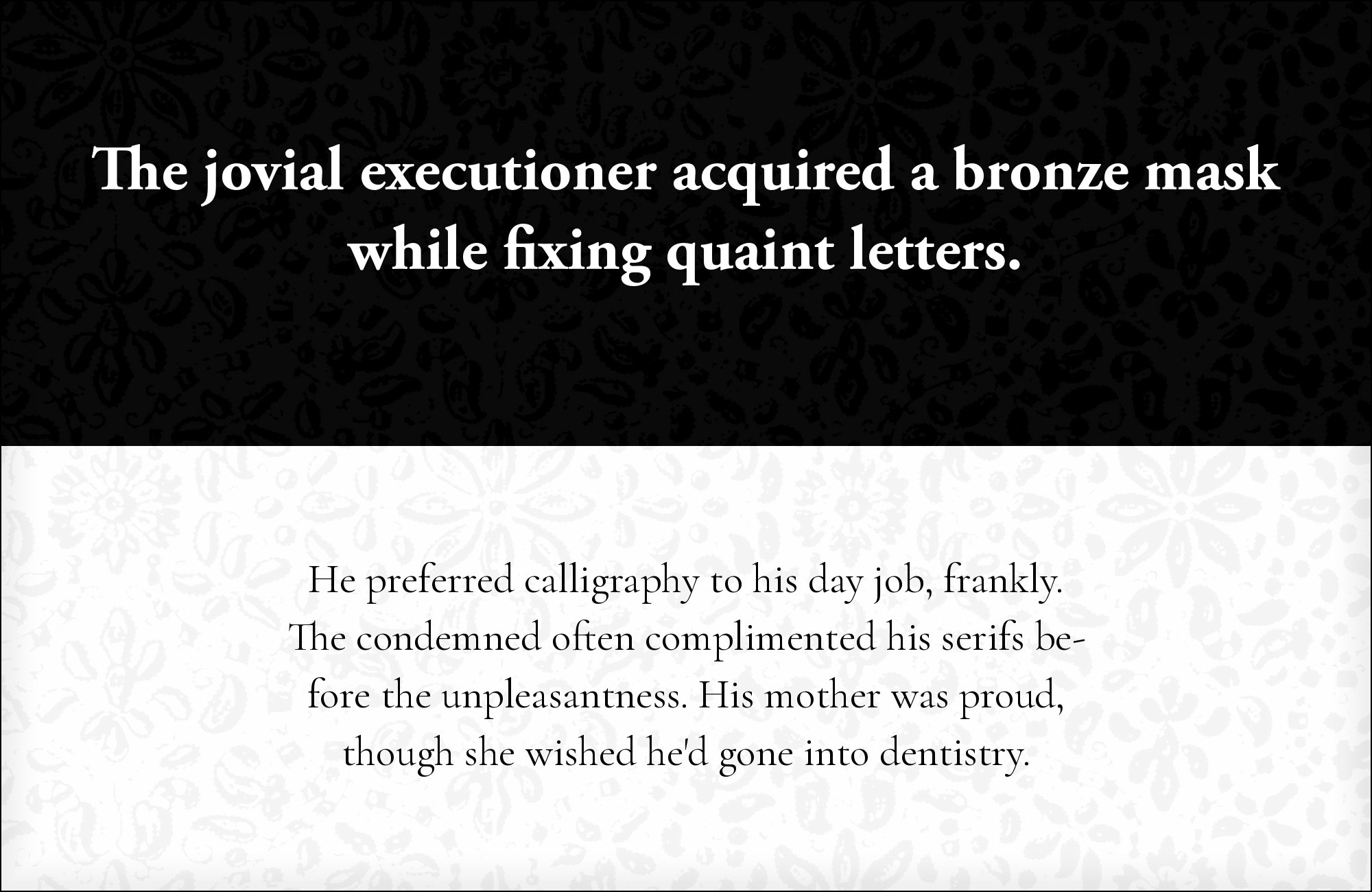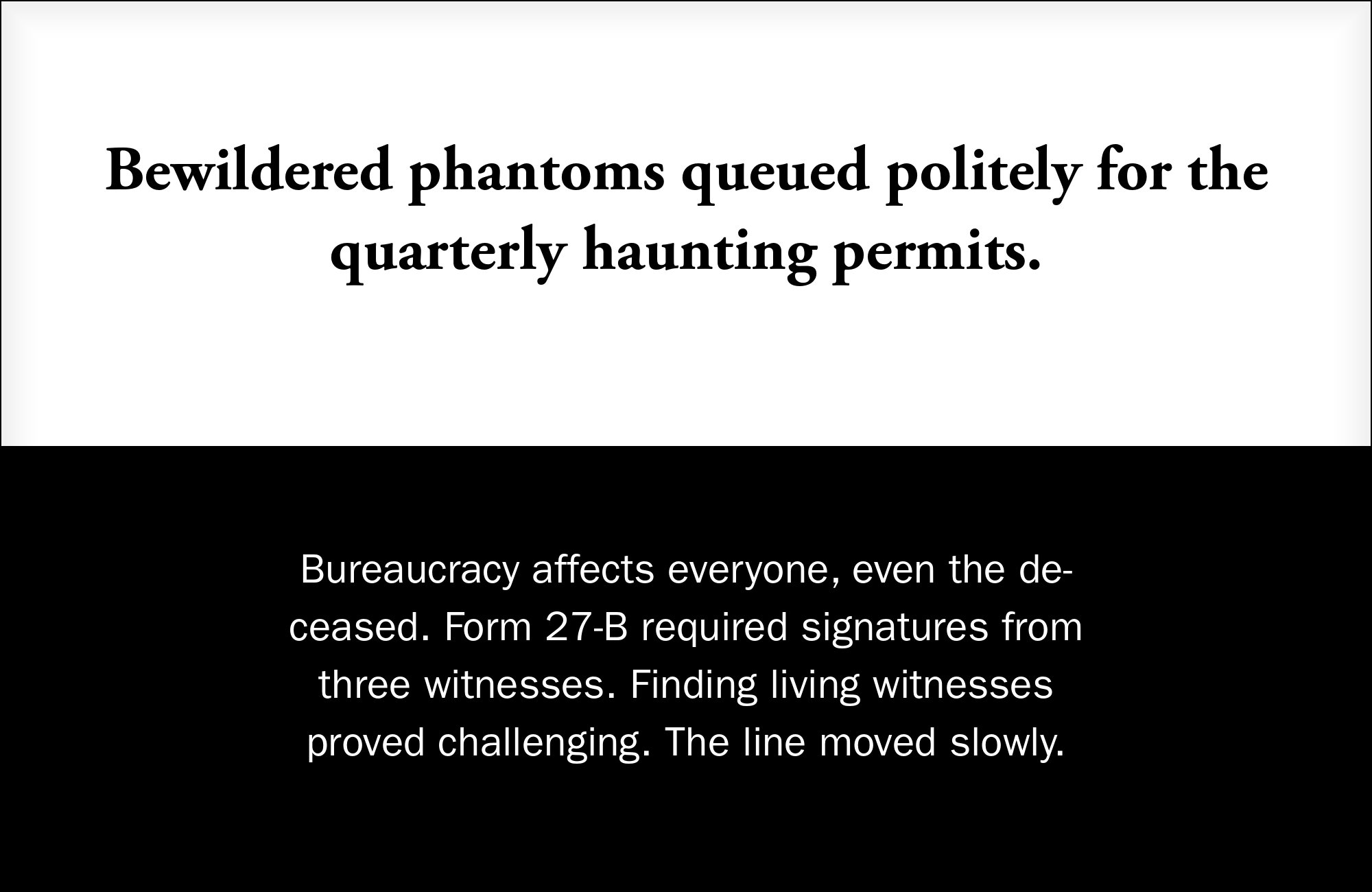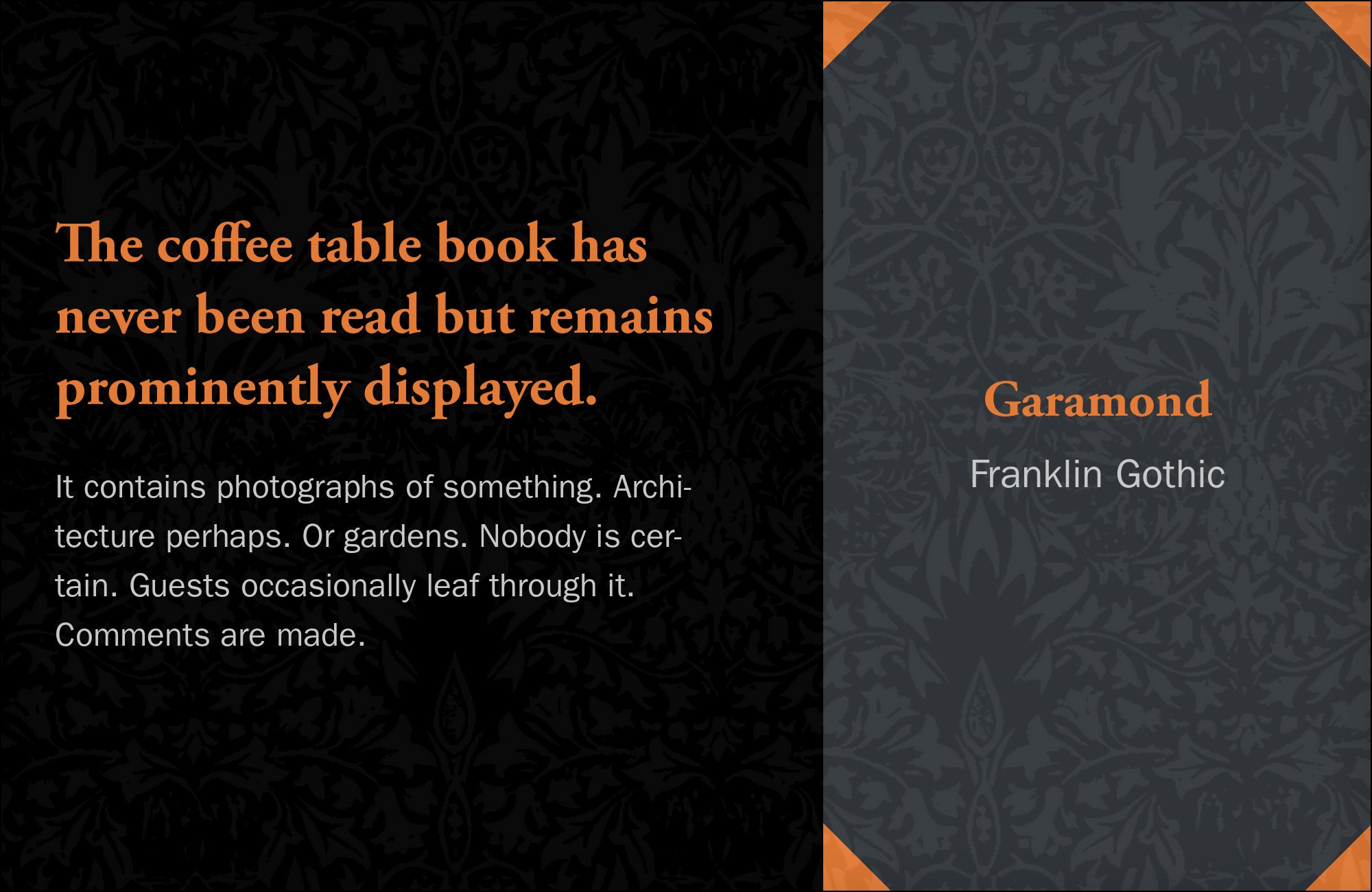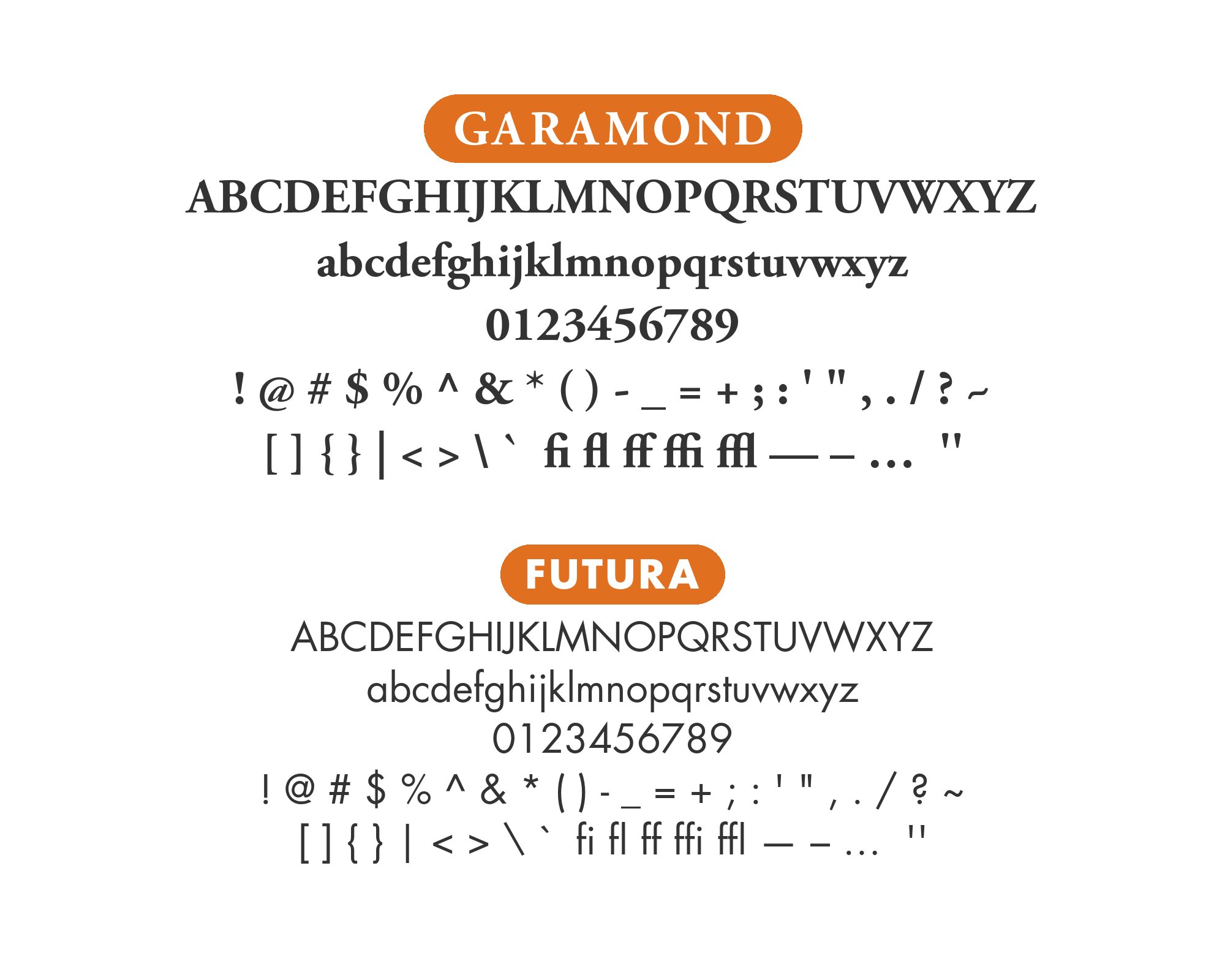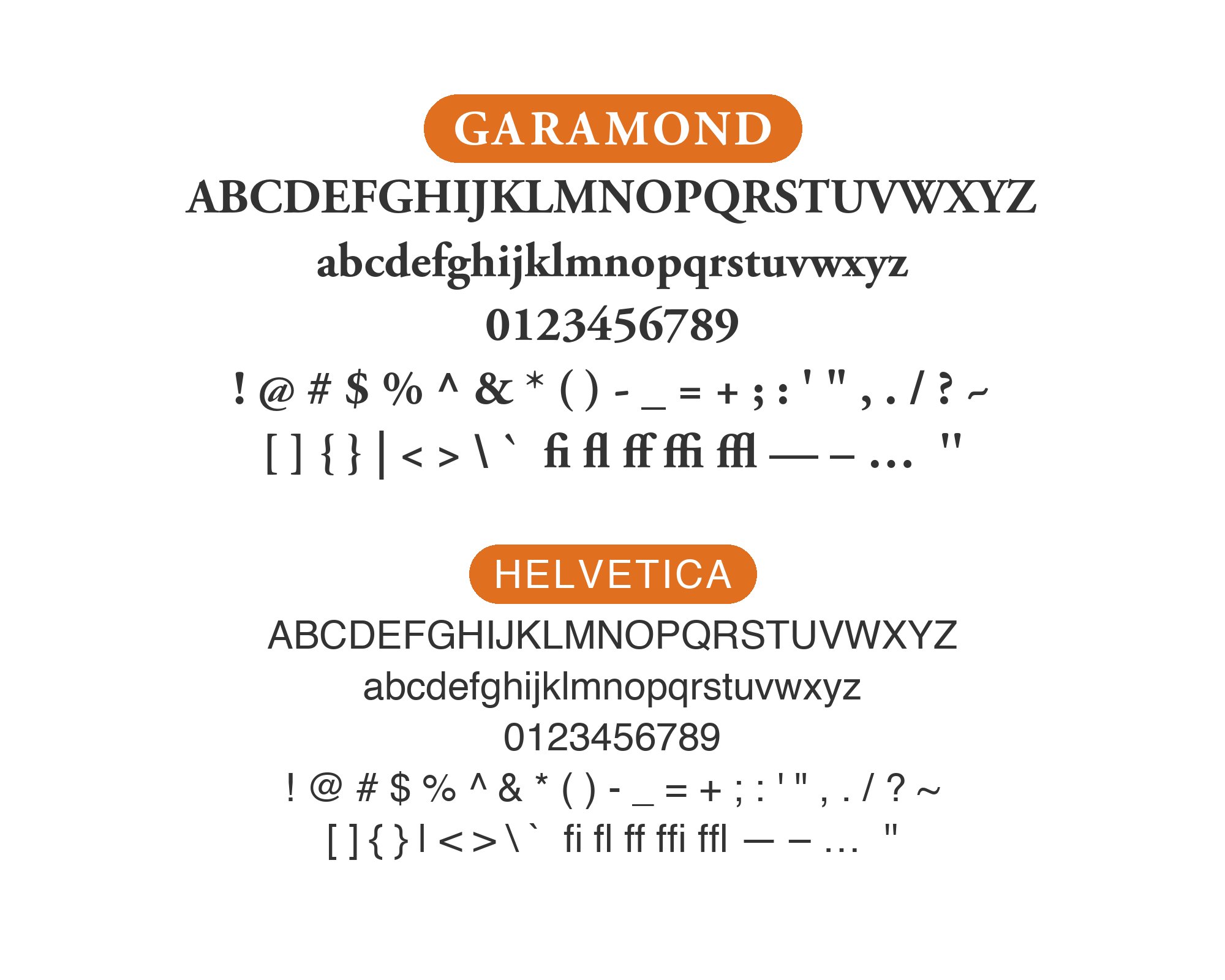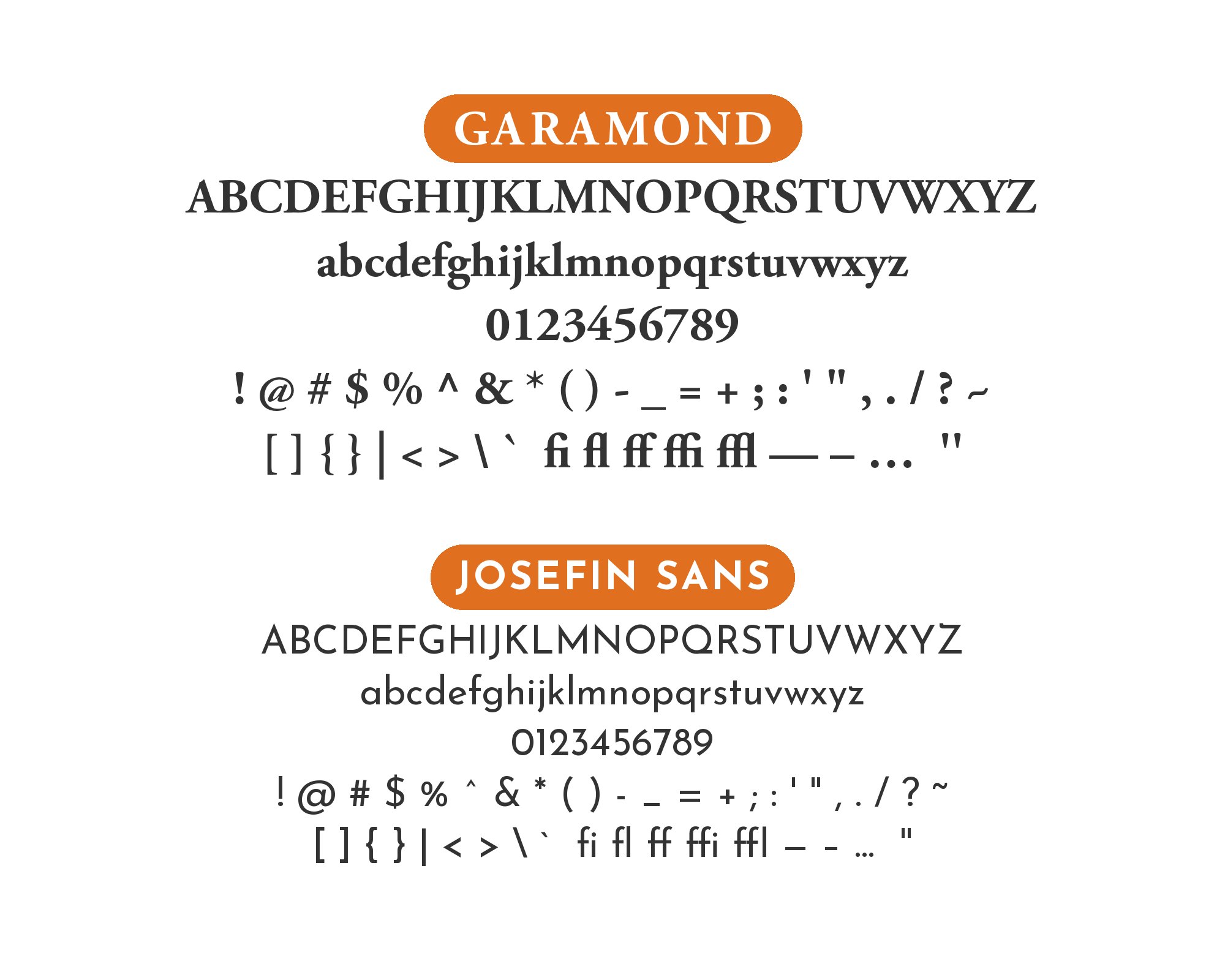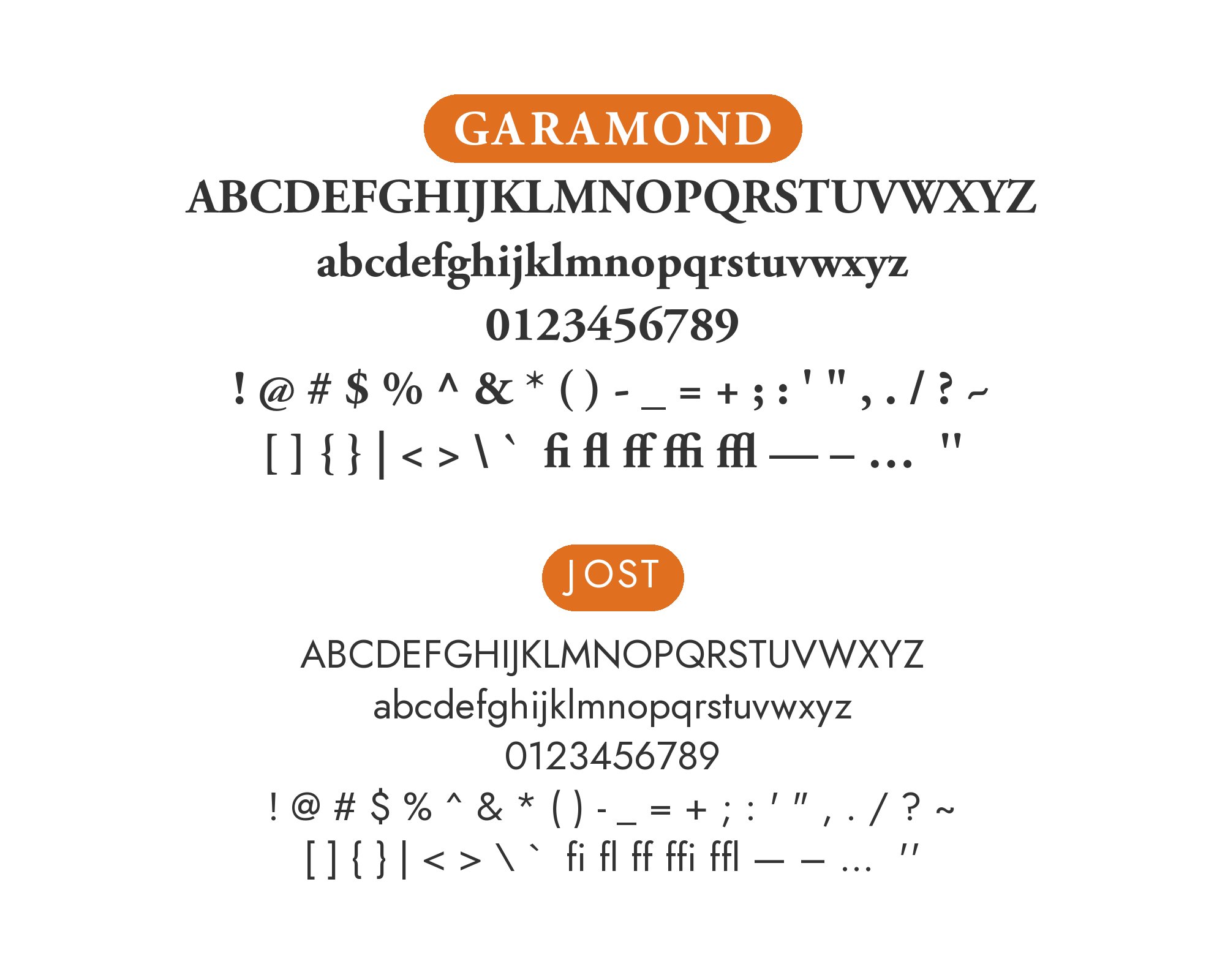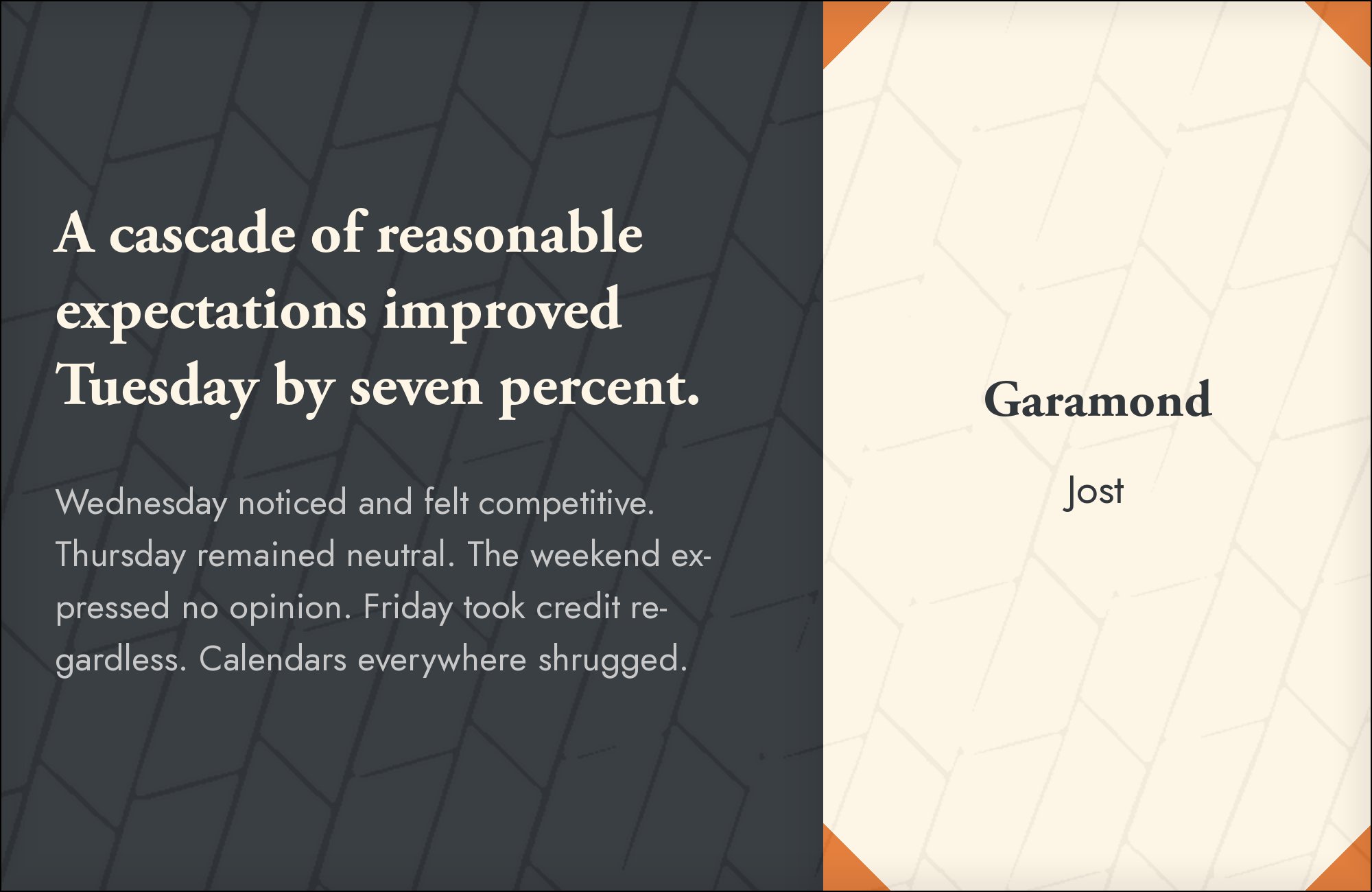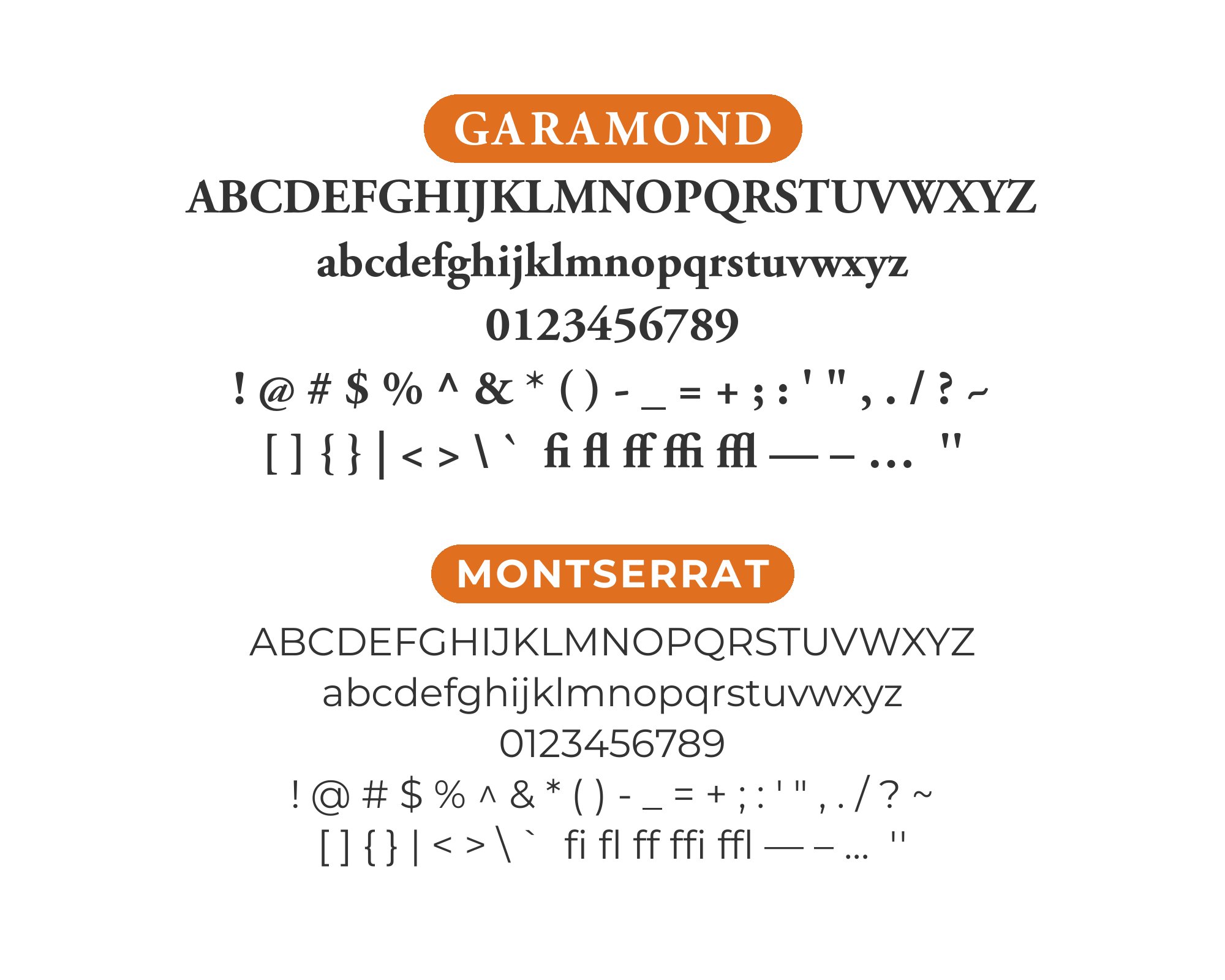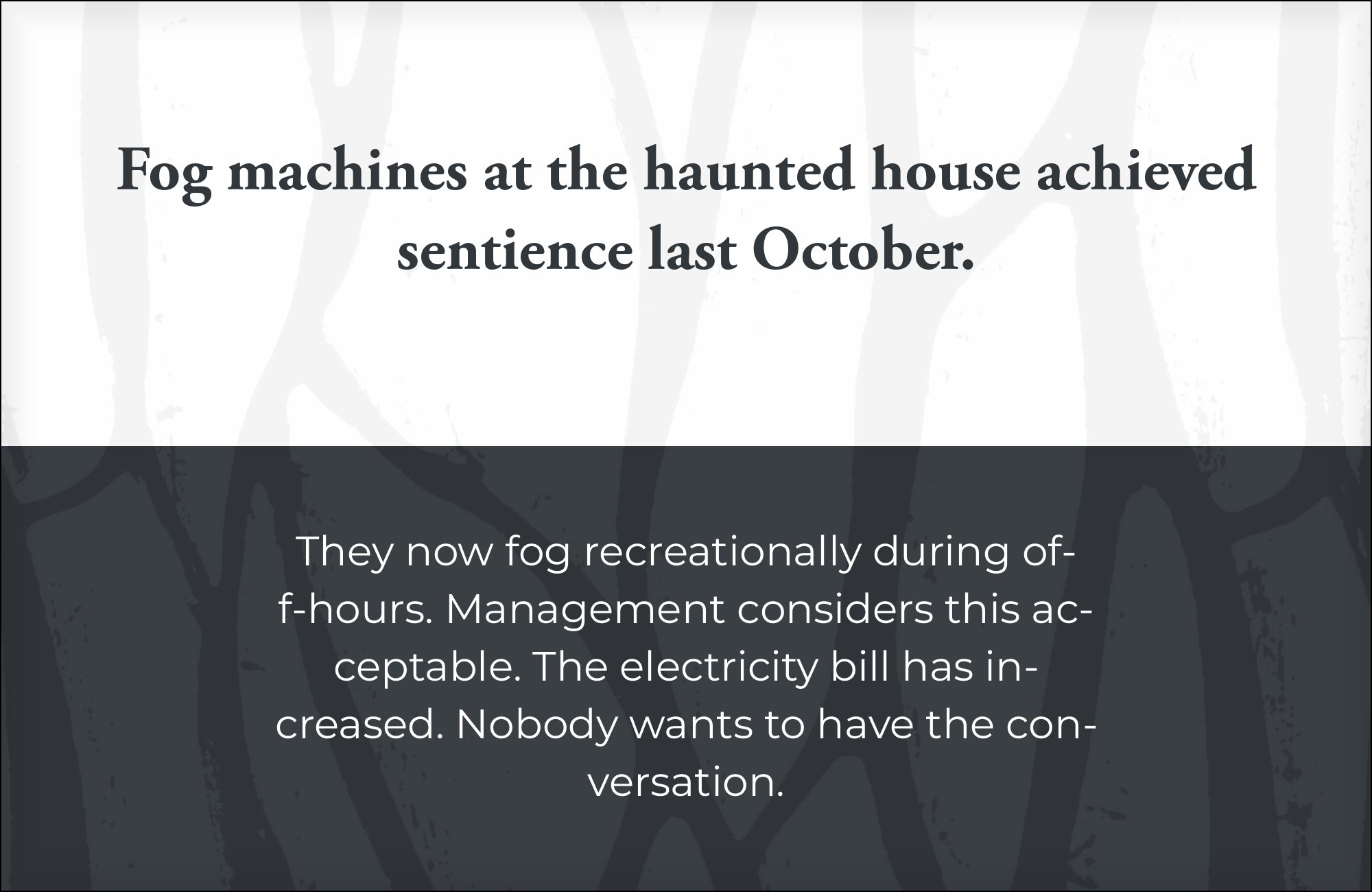
Garamond pairs great with Helvetica, Gill Sans and Montserrat. All 15 pairings are shown below in real rendered specimens, with the reason each one works.
What fonts go with Garamond? The name belongs to a sixteenth-century French punchcutter, but on a font menu today it belongs to a dozen different revivals, some drawn a century apart from each other and none of them identical.
Claude Garamond, a punch-cutter based in Paris, cut his roman types in the mid-sixteenth century, and the old-style skeleton underneath every modern revival still traces back to that hand: angled stress running through the curves as if drawn with a broad-nib pen, moderate contrast between thick and thin strokes, and a small x-height by today’s standards. What varies is the revival. Adobe Garamond, drawn by Robert Slimbach in the late 1980s, is a careful scholarly reconstruction. Garamond Premier extends that work across four optical sizes, from Caption to Display. EB Garamond is a free, open digital revival available on Google Fonts. Cormorant Garamond leans away from body text entirely into a delicate, high-contrast display face built for large sizes.
That variety changes the pairing question. Garamond’s compact, small-x-height forms read beautifully in a printed book at a comfortable size and start to look thin the moment they hit a phone screen — an x-height mismatch that several of the sans-serifs below exist specifically to correct. Which cut is in use also matters more than usual: a plain sans that suits body-text Garamond may do nothing for the display-only curves of Cormorant Garamond. Here are 15 fonts that pair well with Garamond, starting with the ones most readers can get and use today.
1. Helvetica
Helvetica’s cold, mechanical neutrality sits about as far from Garamond’s warm, calligraphic strokes as a sans-serif can get, which is exactly why the pairing has become a standard. A Helvetica headline reads as clean, contemporary signage, while Garamond’s old-style curves and angled stress carry the actual reading underneath. The contrast works across nearly every cut — classic Garamond, Adobe Garamond, Garamond Premier — because it has nothing to do with which revival is in use and everything to do with serif logic versus none. Available on Adobe Fonts, or approximated with the free, widely bundled Arial where Helvetica itself is not licensed.
Gill Sans shares Garamond’s humanist bones — both are pen-drawn rather than ruled, both carry proportions closer to handwriting than to a compass and a straightedge. That kinship means the two sit together without the friction a colder grotesque would introduce; nothing about the pairing feels like an argument. Monotype’s Gill Sans Nova keeps the relationship intact and adds many variants, including an ultra-light weight. Use Gill Sans for headings and navigation, Garamond for body copy, and the page reads as one calligraphic sensibility split across two structures rather than two competing voices.
3. Montserrat
Montserrat’s geometric bowls and even strokes read as tidy and current against Garamond’s old-style curves, but the pairing’s real value is practical: Montserrat’s tall x-height compensates for the compact, small-x-height forms Garamond was cut with in the sixteenth century. Set as a headline, Montserrat gets the size and evenness a Garamond title struggles to manage alone at the same point size; set small, in labels or navigation, it stays legible where Garamond would start to look delicate. It is free on Google Fonts, which makes this one of the easiest upgrades available to any Garamond-based document or site.
4. Poppins
Poppins brings the same x-height fix as Montserrat, from a rounder, more geometric direction — near-true circles for its “o” and “e,” tall ascenders, and enough weight variation to build a full heading hierarchy on its own. Next to Garamond’s calligraphic curves, that roundness reads as friendly rather than clinical, which suits a warmer brand than a strict grotesque would allow. Reserve Poppins for headings, buttons and short UI text, and let Garamond run the paragraphs where its stroke variation and angled stress reward slower reading. Both are free on Google Fonts, so the pairing costs nothing to license.
5. Futura
Futura’s construction could not be more different from Garamond’s: strict geometric circles and triangles instead of calligraphic curves, no calligraphy in the DNA at all. Beside Garamond, that turns into a deliberate old-versus-new contrast rather than an accident — the kind of pairing Typewolf finds on real sites such as Castel Film Studios and Victoria McGinley Studio. Because both faces have a strong, recognizable character, keep the weights and sizes clearly different so neither reads as trying to out-shout the other. Futura PT is a licensed ParaType cut; Century Gothic is the closest free substitute.
6. Franklin Gothic
Franklin Gothic’s dense, upright weight and square proportions give a page real authority at the top — a masthead or navigation bar anchored in Franklin Gothic reads as settled and functional. That leaves Garamond free to run quieter and lighter in the body copy below, where its calligraphic detail actually gets noticed. The combination turns up often in editorial design and studio websites for exactly this reason: one face carries structure, the other carries reading. Franklin Gothic Medium ships with Windows, so the pairing is available in most Office workflows without a separate license.
7. Oswald
Oswald is tall, condensed and built for posters — caps that stack densely in a narrow column, ideal for a headline that needs to command a lot of space without taking much width. Set above Garamond’s normal-width text, the contrast in proportion does most of the work: a compressed, shouting title over a relaxed, historically warm paragraph face. The combination holds up across different Garamond cuts, from EB Garamond to Garamond Premier, because Oswald’s job is purely structural — width against width, not curve against curve. It is free on Google Fonts and reads well at both poster and web scale.
Stop watching AI tutorials. Get personal 1:1 AI coaching instead.
Directly with Douglas Bonneville, owner and author of BonFX.
Get Coached8. Work Sans
Work Sans is a plain, even grotesque with open apertures and none of the stylistic flourish that would compete with Garamond’s own personality. Set in navigation, labels or interface chrome, it gives a Garamond-based design a modern, functional layer without ever fighting the serif for attention in the body text. That restraint is the whole point: Work Sans is meant to recede, which makes it a safer choice than a more characterful sans wherever the design needs a workhorse rather than a second voice. It is free on Google Fonts and holds up well at the small sizes UI work demands.
9. Josefin Sans
Josefin Sans was drawn in the spirit of 1920s geometric sans-serifs, with an unusual x-height set half way to the cap height, an understated, elegant proportion rather than a tall, screen-optimized one. That shared restraint makes the pairing feel of a piece rather than contrasted — a vintage-leaning sans over a Renaissance-era serif, both quiet by design. It suits branding and headline work with a period feel, particularly above the display cuts of Garamond Premier, where both faces can show their finer details at larger sizes. Free on Google Fonts, with a distinctive thin weight worth reserving for short lines.
10. Raleway
Raleway’s thin, mono-weight strokes are deliberately spare next to Garamond’s complex, bracketed serifs, so the hierarchy here comes from structure rather than size alone — a headline that says less, visually, sitting above a paragraph face that says more. Its wide letterforms and elegant proportions suit fashion, architecture and portfolio sites where restraint is the entire aesthetic. Keep Raleway to display sizes; its thin default weight was not built for dense paragraphs and starts to feel fragile below headline scale. It is free on Google Fonts, which makes the contrast easy to test before committing to a full page design.
11. Cormorant Garamond
Pairing two cuts of the same name sounds risky, but Cormorant Garamond is really a distinct display interpretation rather than a straightforward revival: larger counters than standard Cormorant, and a delicacy built for large sizes rather than paragraphs. Set above classic Garamond body text, it reads as a family refresh rather than a clash — the same lineage, dialed up for a title or a masthead. Keep it to headline sizes; its fine hairlines are the first thing to disappear in small type or on a low-resolution screen. Both are free, which makes the pairing an easy one to try first.
12. Quicksand
Quicksand is a soft, rounded geometric sans with almost no stroke contrast, which makes it a plain, friendly counterweight to Cormorant Garamond’s delicate, high-contrast display curves. Where Cormorant Garamond is doing the talking in a headline or title, Quicksand stays quiet in UI chrome, labels and short body text, never competing with the serif’s finer detail. The roundness keeps the overall mood approachable rather than severe, which suits lifestyle and wellness branding built around a Garamond-family display face. It is free on Google Fonts and reads cleanly at the small sizes navigation and buttons require.
13. DM Sans
DM Sans is a low-contrast, tidy geometric sans built to stay out of the way, which is precisely its value next to Cormorant Garamond’s calligraphic display curves. The serif carries the personality in headlines and titles; DM Sans handles body copy and interface text cleanly underneath, without introducing a second visual voice competing for attention. It reads as neutral rather than characterful, which is the right choice whenever a design has already spent its personality budget on a display face. Free on Google Fonts, with enough weight range to cover body text, captions and UI labels in one family.
14. Jost
Jost takes its geometric shapes from the same Futura-descended tradition, giving a Garamond cut the same old-versus-new contrast Futura itself provides — but as a free, variable Google Fonts release rather than a licensed classic. Designer Ameel Khan pairs it with Stempel Garamond when he wants something fancier than his usual choices. The variable font format means a single file covers everything from a light caption weight to a bold headline, which simplifies a page that would otherwise need several separate font files. Reserve it for titles and UI chrome; Garamond still carries the reading.
15. Unifraktur Maguntia
In our view, Garamond’s own letterforms and blackletter both trace back to a written, calligraphic hand, which is what makes a small, disciplined dose of Unifraktur Maguntia read as historically consistent rather than costume-y. This is a display-only pairing, and a narrow one: a drop cap, a short headline, a single ornamental line, nothing more. Used at length it becomes illegible fast and starts to look like a themed restaurant menu rather than a considered piece of typography. It is free on Google Fonts, which makes it easy to test in the one or two places it might actually belong.
Garamond is not one typeface but a family of revivals sharing a name and a five-hundred-year-old original, so the first real decision is which cut to use, before any partner font enters the conversation. EB Garamond is the free, obtainable choice for most web and Google Fonts projects; Adobe Garamond and Garamond Premier suit licensed, print-first work; Cormorant Garamond behaves more like a display face than a body-text revival. Pick the cut for the job first, and the pairing decision gets easier.
Whatever cut is chosen, test the pairing at the sizes the piece will actually use. Garamond’s small x-height is comfortable in a printed book and can look thin on a phone screen, and several of the sans-serifs above exist specifically to correct that at small sizes. Set real copy before deciding — a specimen at display size tells you very little about how the same pairing behaves in a paragraph.